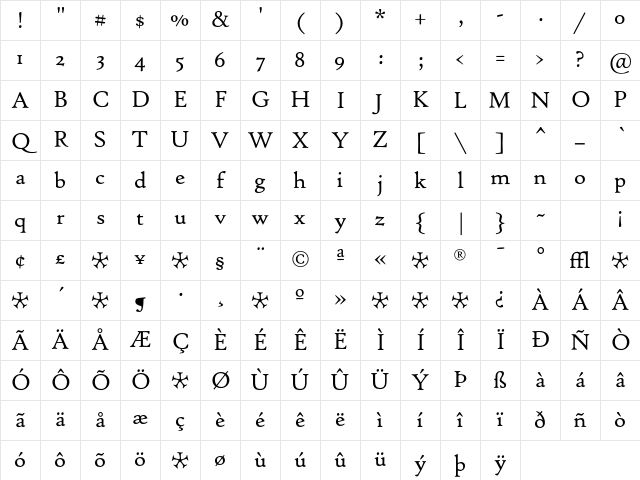
Hightower TextRoman
Style: TextRoman
Design Context for Hightower
Hightower is a composed and adaptable typeface that performs quietly and consistently across a wide range of design contexts.